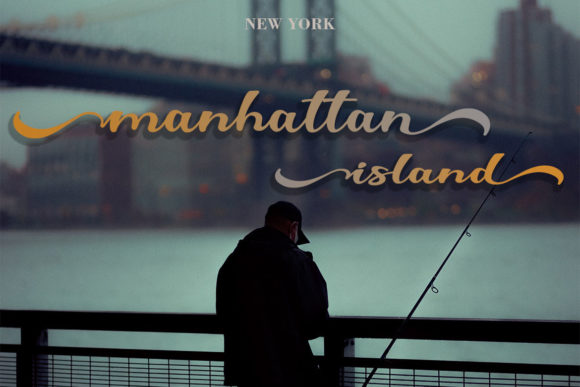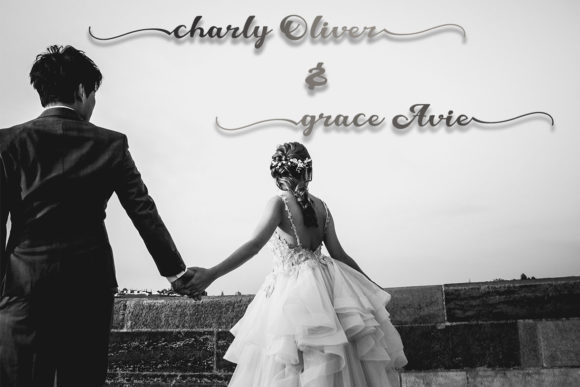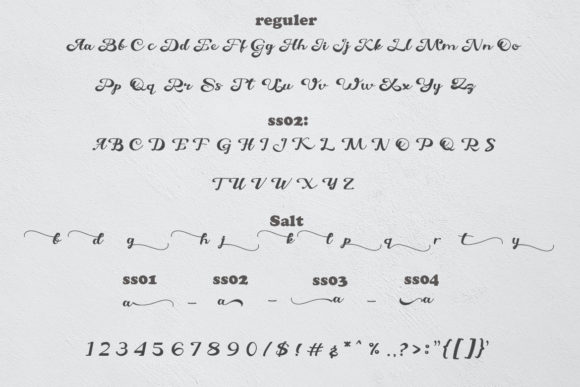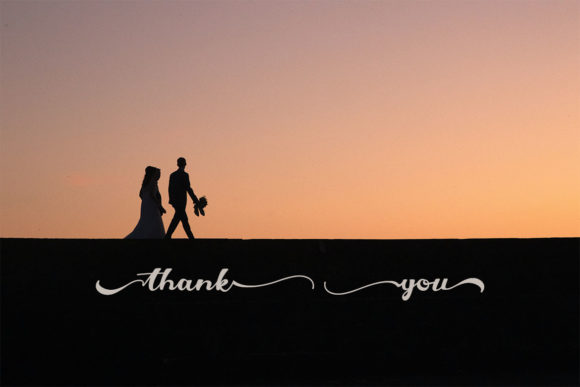
Introduction to Agitasic Deilawa Font
Agitasic Deilawa is a delicate, elegant and flowing handwritten font.
It has beautiful and well balanced characters and as a result, it matches a wide pool of designs Agitasic Deilawa is PUA encoded which means you can access all glyphs and swashes with ease.